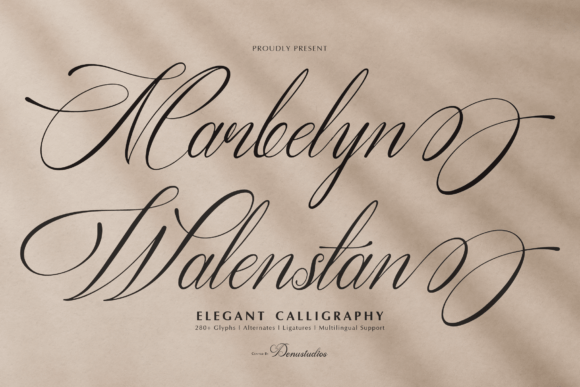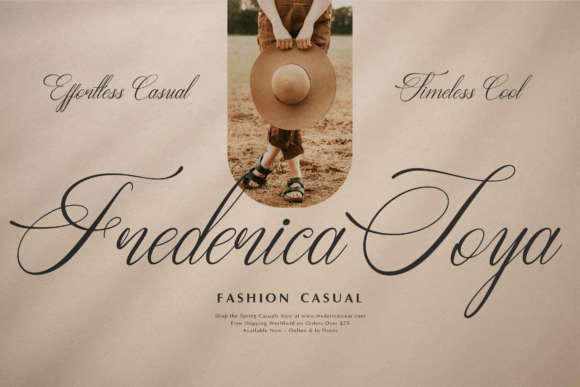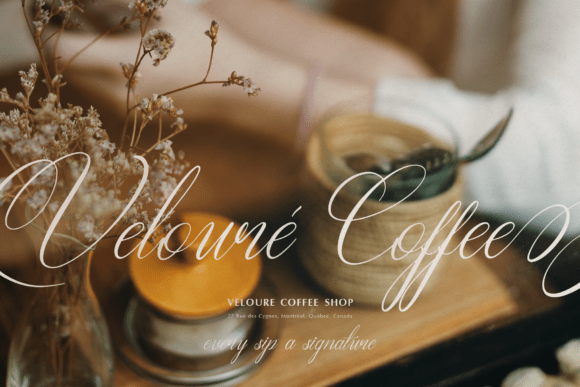
Marbelyn Walenstan Font
About the Marbelyn Walenstan Font
The Marbelyn Walenstan Font is here to transform your projects with its distinctive character and style. Marbelyn Walenstan is an elegant calligraphy font featuring luxurious swashes and refined curves. Perfect for upscale branding, wedding stationery, and signature designs, this font includes over 280 glyphs with alternates and ligatures, offering endless versatility for sophisticated typography. Add a touch of grace and exclusivity to your projects with Marbelyn Walenstan.
Marbelyn Walenstan excels in applications requiring a high degree of elegance and sophistication. Headlines, logos, short text blocks on invitations or packaging, and even social media posts benefit from its refined curves and swashes. However, its decorative nature makes it unsuitable for body text or UI elements where readability is paramount. Avoid using it for large blocks of text.
Its elegant personality pairs well with clean sans-serif fonts like Poppins or Open Sans for a balanced contrast, or with a geometric sans-serif like Montserrat for a more modern feel. For a more traditional approach, a classic serif like Garamond or a subtle script font can complement its luxurious feel.
The font projects an air of refined luxury and exclusivity, ideal for brands associated with high-end products, fashion, beauty, or wedding-related services. Its inherent sophistication makes it less appropriate for playful or casual projects.
Marbelyn Walenstan Font Usage Examples
Marbelyn Walenstan Font Example